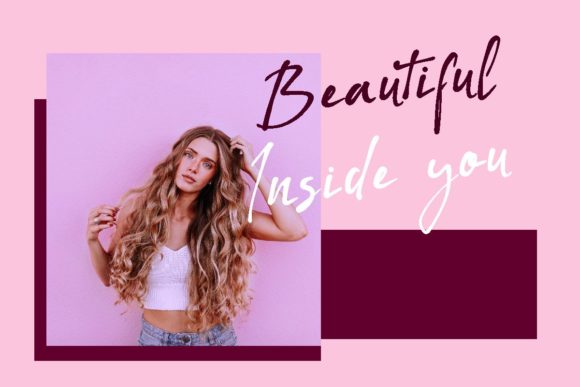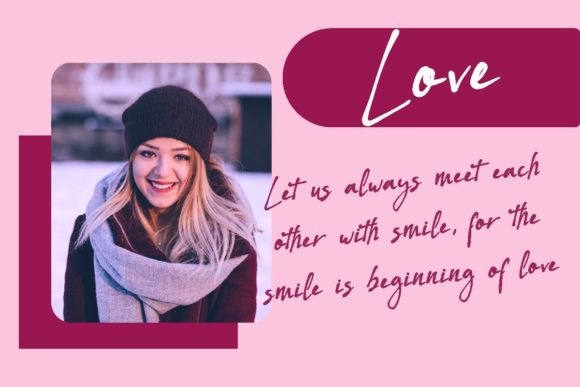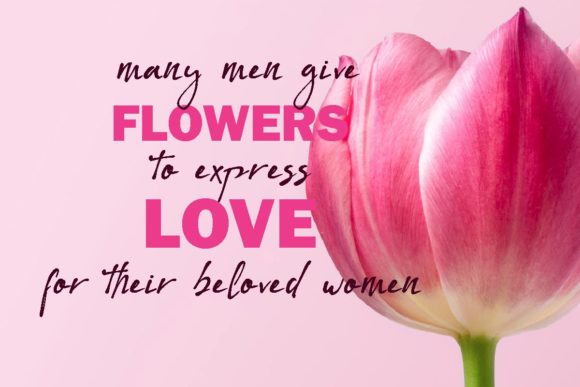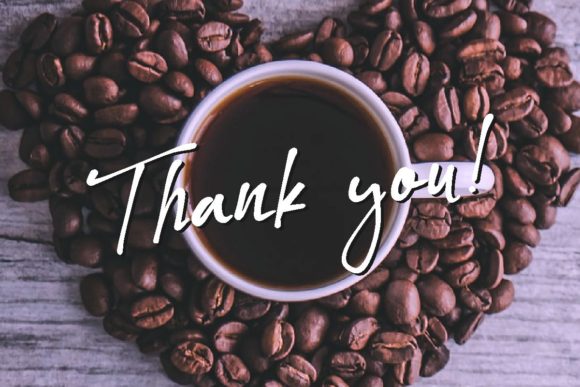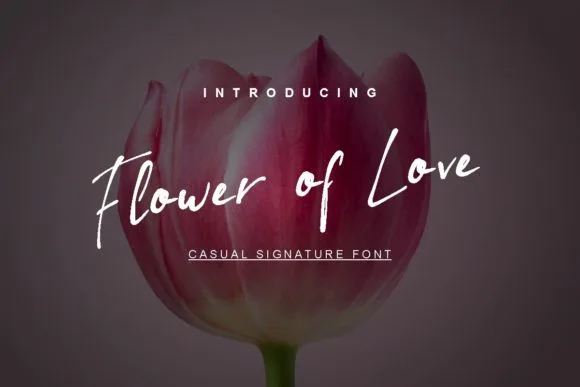
Flower of Love Font
About Flower of Love Font
Introducing “Flower of Love” – a natural script font that adds a unique touch to your designs. With its versatile style, Flower of Love is perfect for logos, quotes, posters, playful lettering, clothing, and any other design that requires an authentic and distinctive look.
Flower of Love captures the essence of natural handwriting with its organic and flowing letterforms. The irregular strokes and charming imperfections give it a genuine and handmade feel, adding a touch of authenticity to your designs.
Whether you’re creating a logo for a whimsical brand, designing inspirational quotes, or crafting eye-catching posters, Flower of Love brings a unique and personalized touch to your creations. Its playful and expressive nature allows you to convey your message with a sense of warmth and creativity.
The versatility of Flower of Love extends to various design applications. From playful lettering and branding to stylish clothing designs, this font adapts effortlessly, infusing your projects with an unmistakable charm.
Flower of Love invites you to explore and experiment with its unique features. Let your imagination soar as you incorporate this font into your designs, adding an artistic and distinct flair.
In summary, Flower of Love is a natural script font that adds a unique touch to your designs. Its versatile style makes it suitable for logos, quotes, posters, playful lettering, clothing, and more. Embrace the authenticity and creativity of Flower of Love and let it infuse your designs with a distinct and captivating aesthetic.